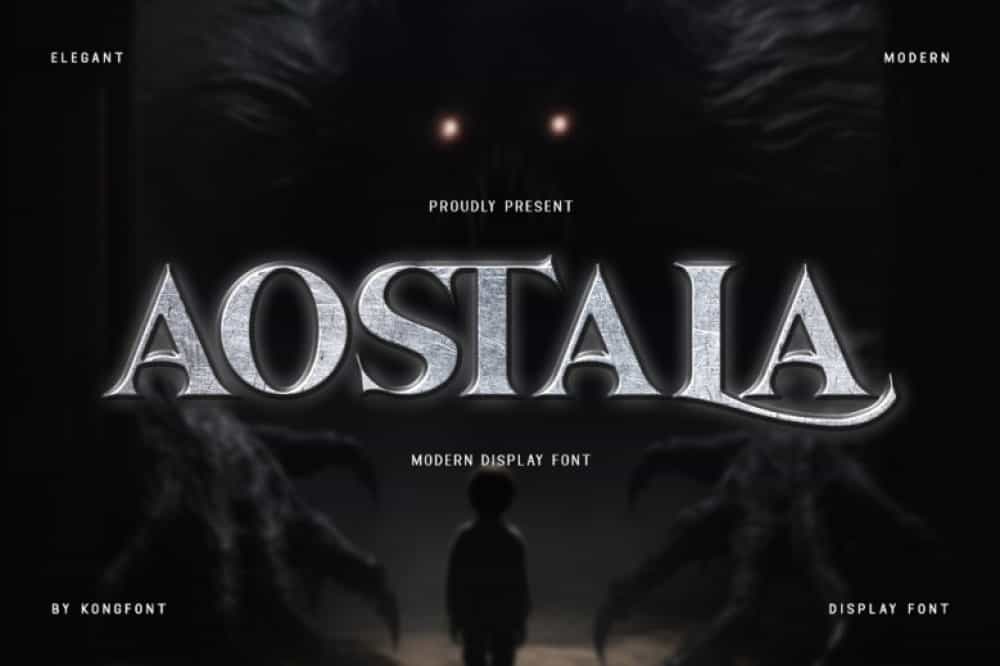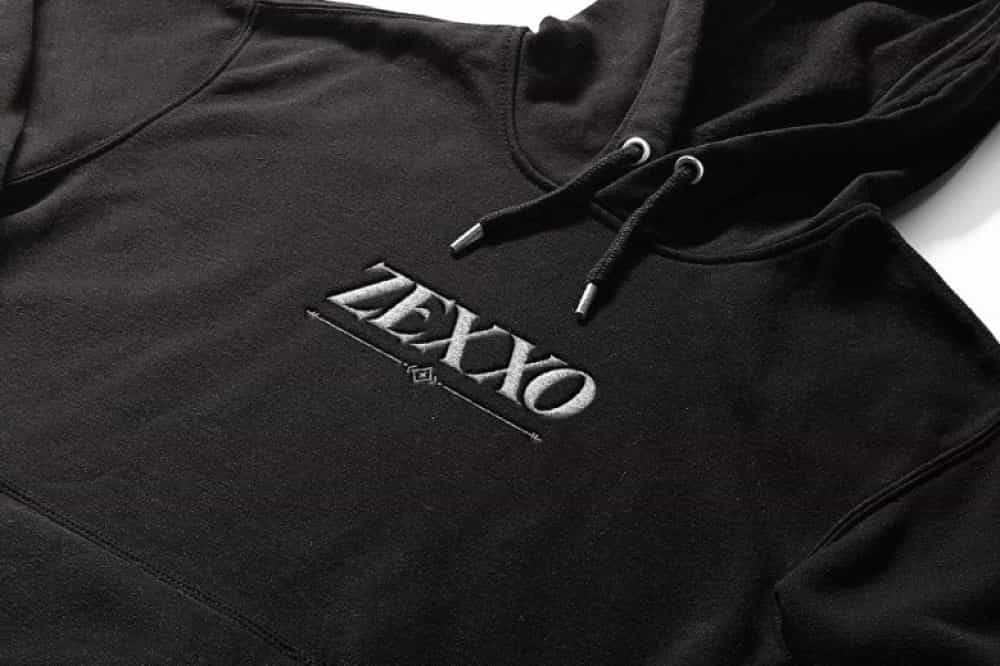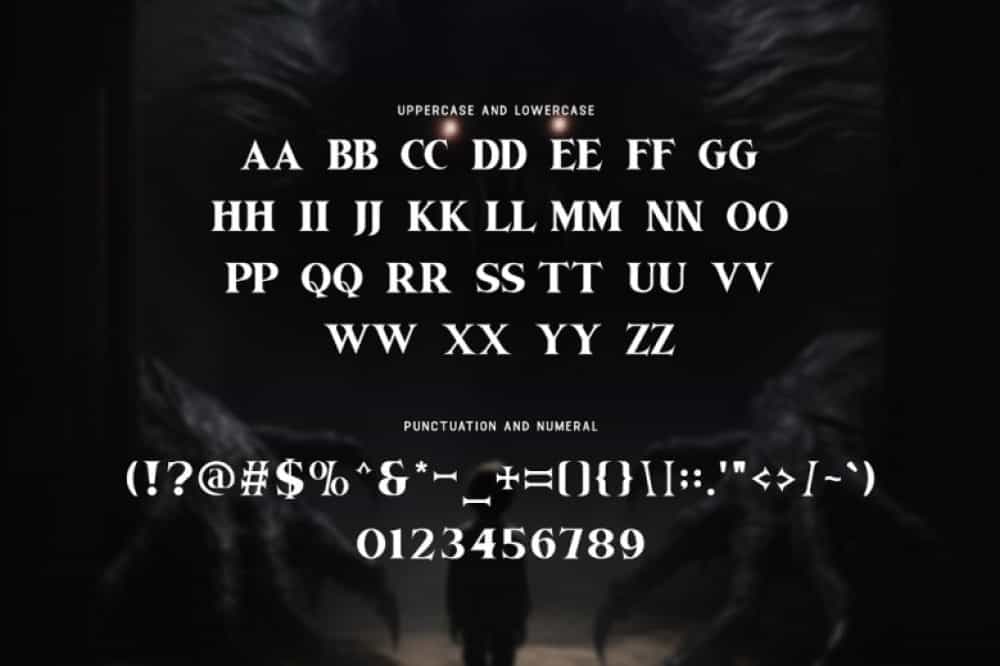
Aostala is a new and clean serif font that is produced by Kong Font. This is the aspect that sets this font from other serif fonts. Aostala has a plain look and a rather soft serif. This font is more on the aggressive side when it comes to edge and appeal. These characters make the Aostala one of the best fonts that have high compatibility with the branding of beauty products.